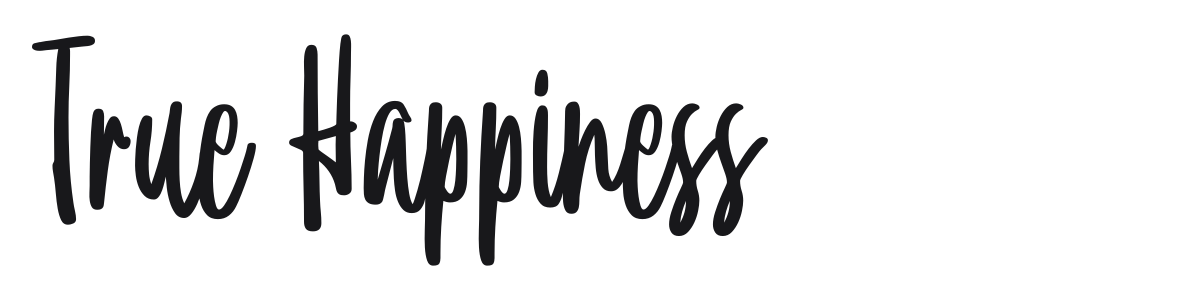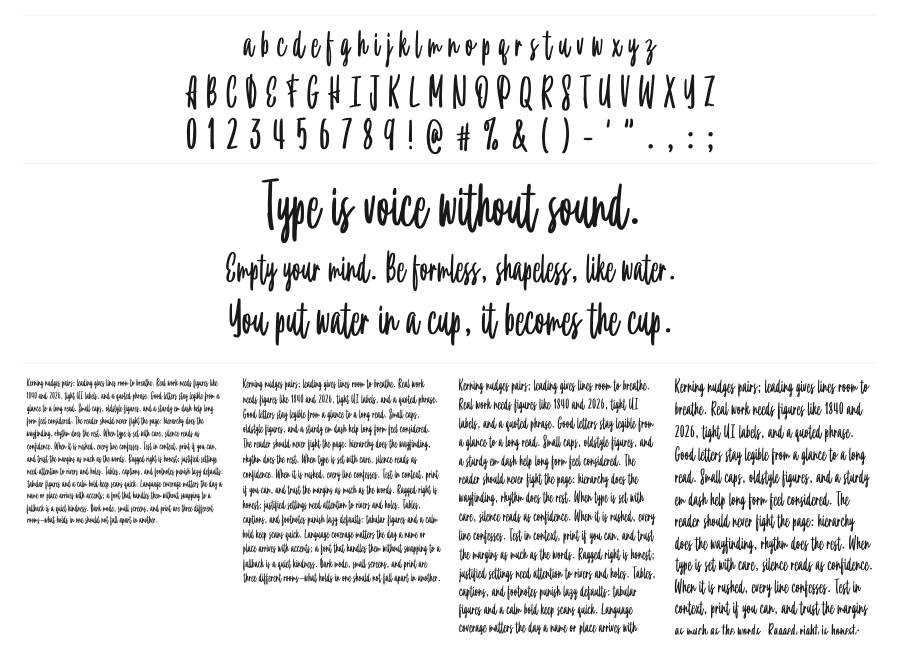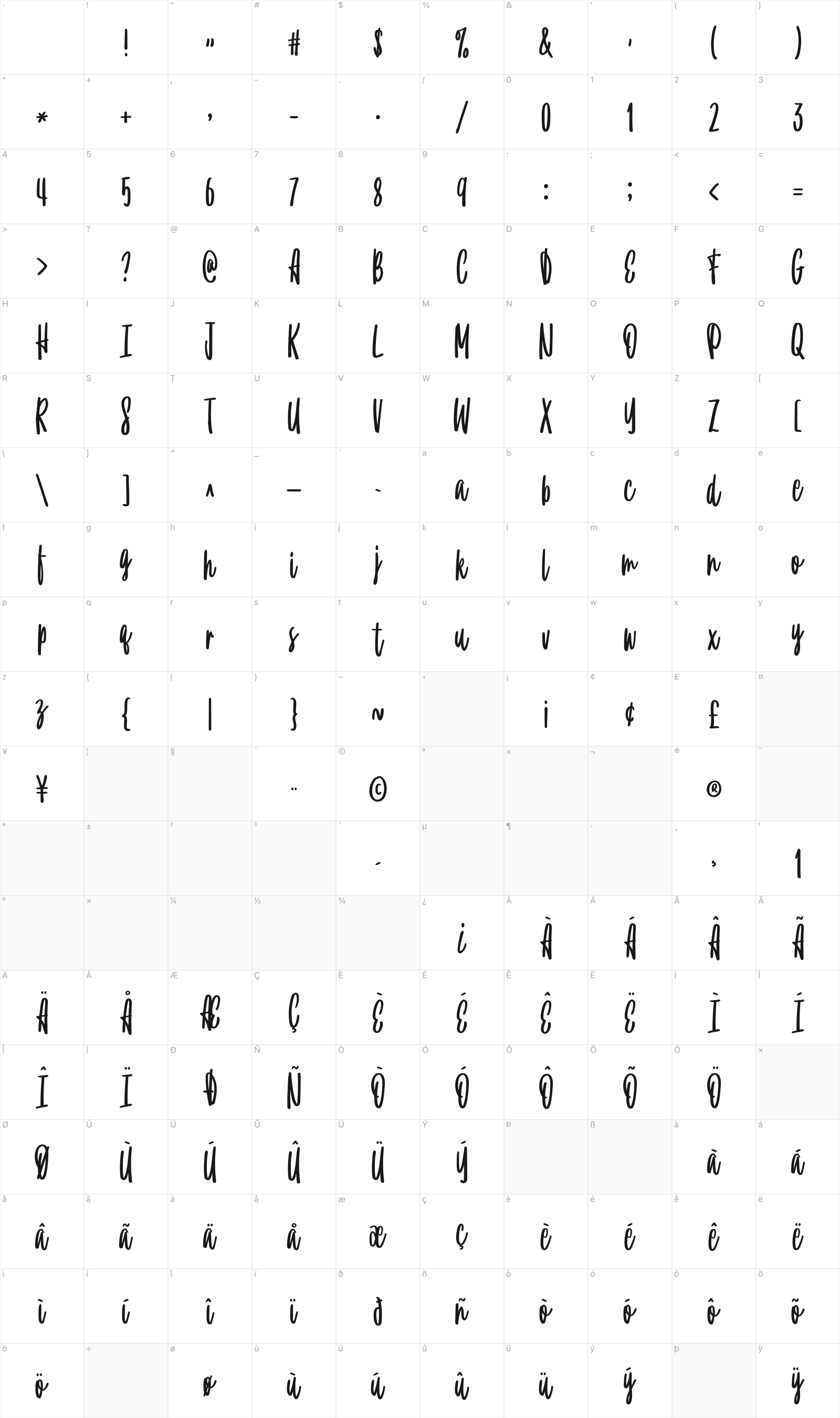
True Happiness
True Happiness is a condensed upright casual script drawn from original handwriting by Locomotype. The bold connected strokes move with natural rhythm, giving it a personal, energetic quality that feels handcrafted rather than mechanical. It works well at large sizes for headlines, packaging, and any project that needs a warm, informal touch.